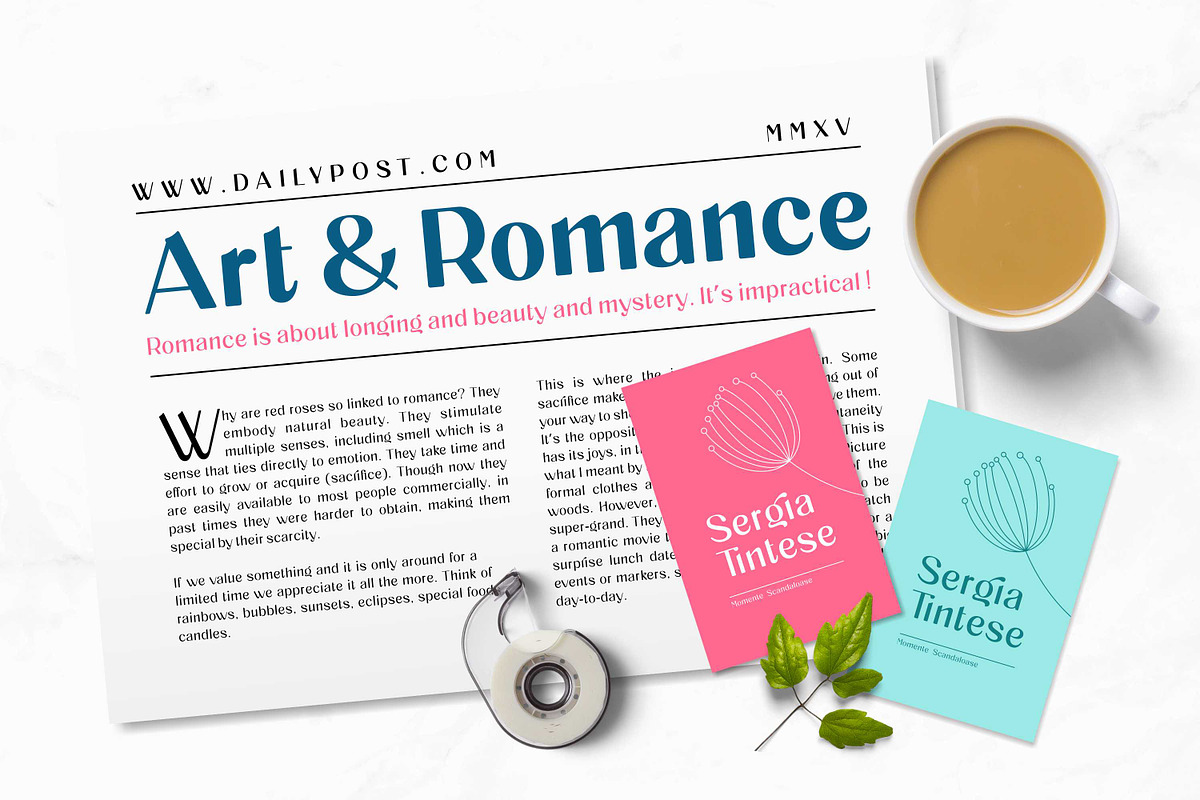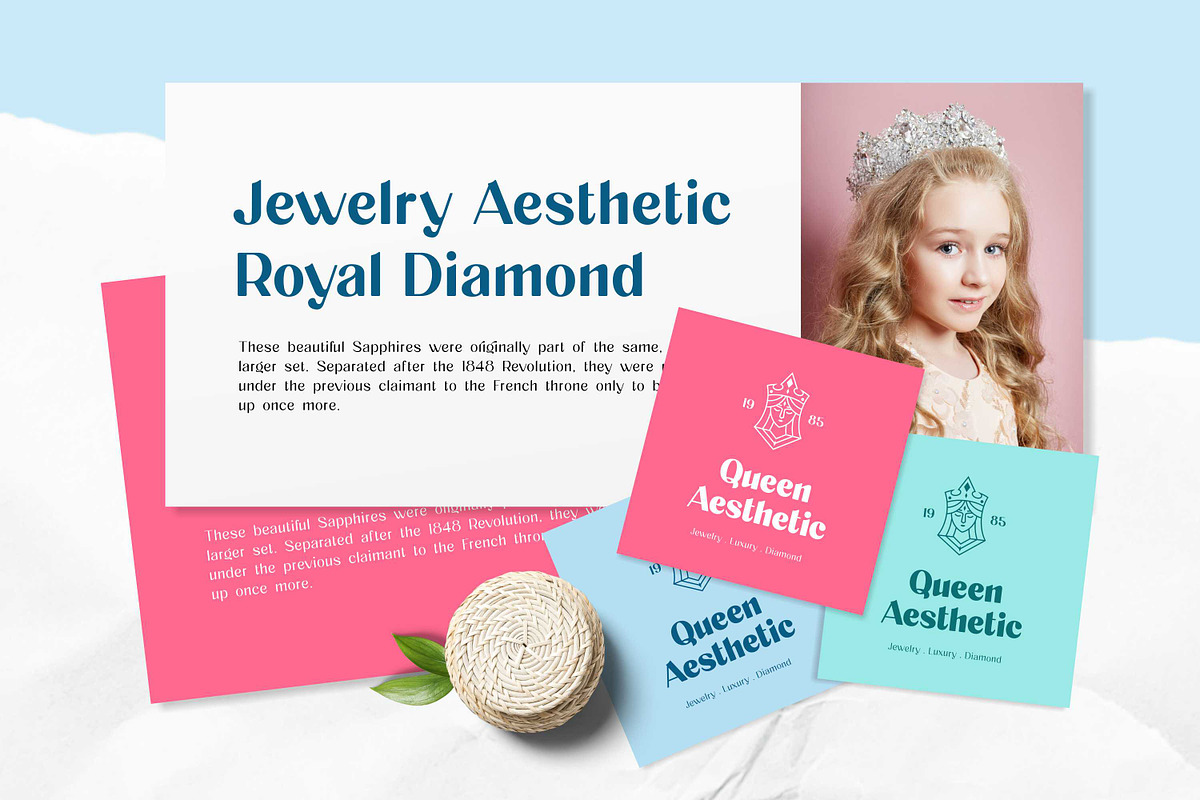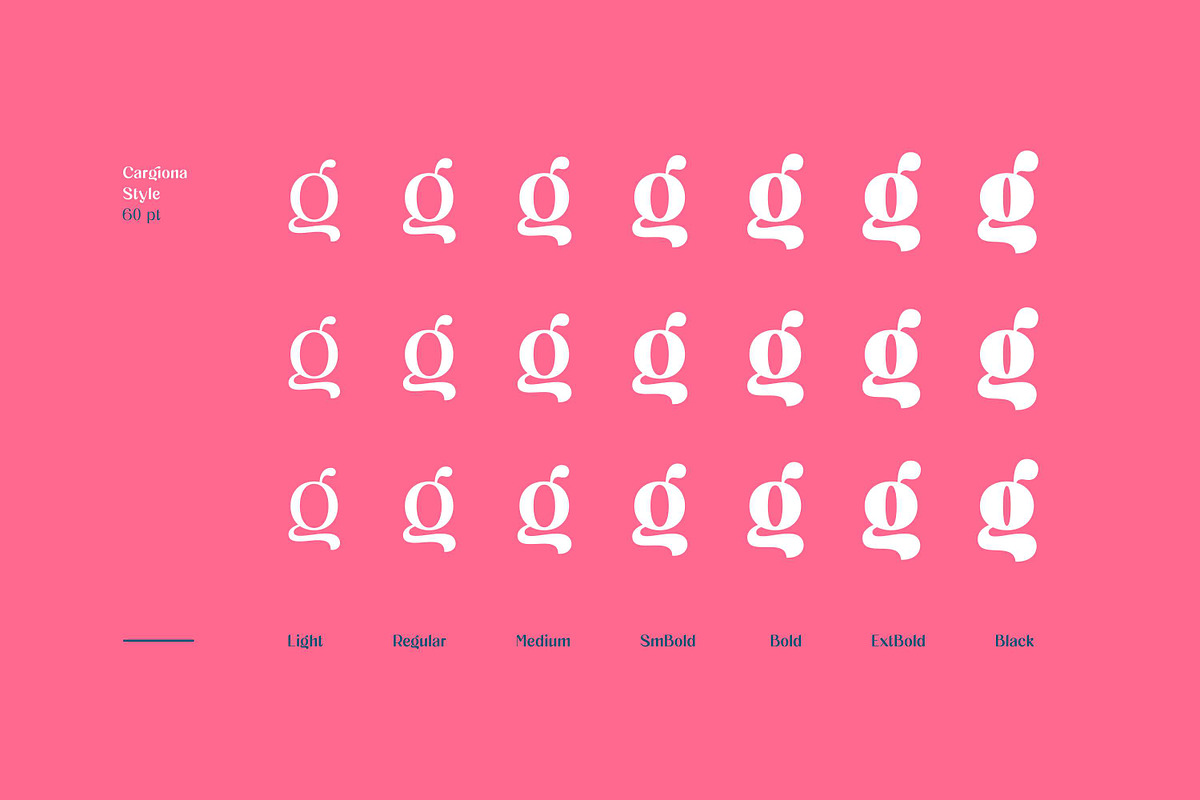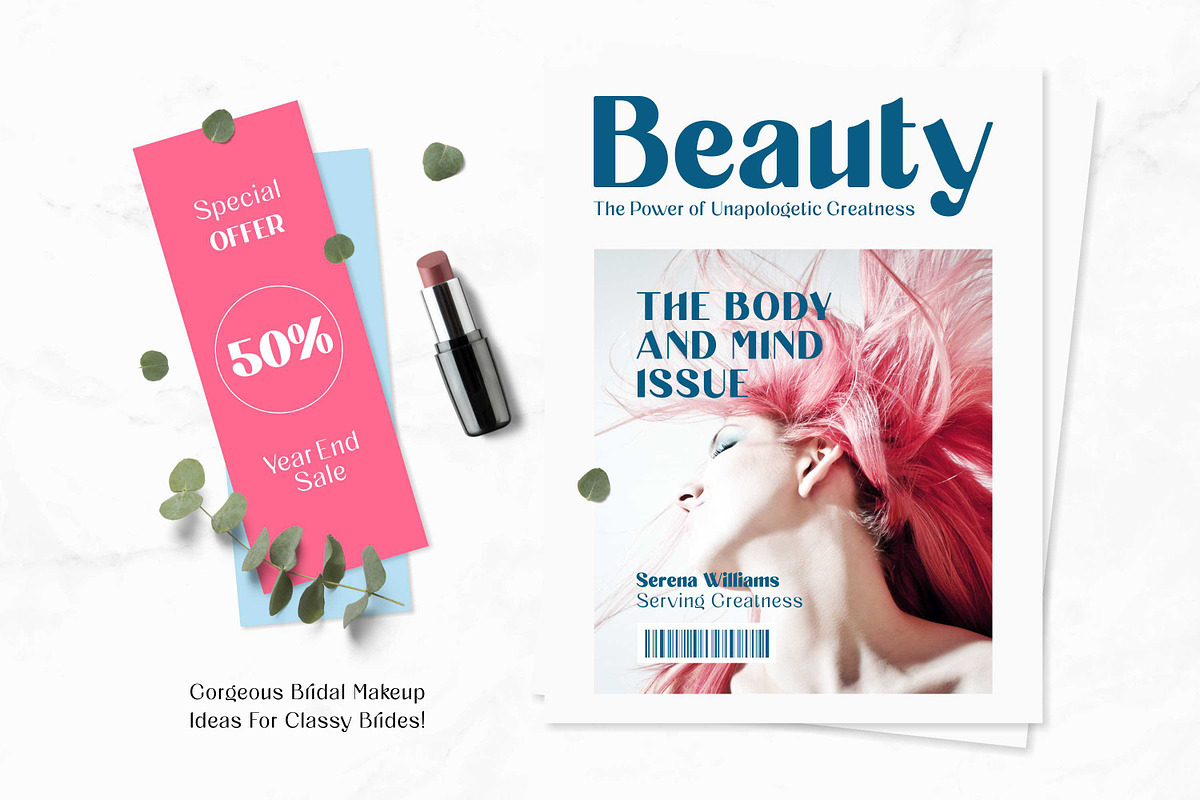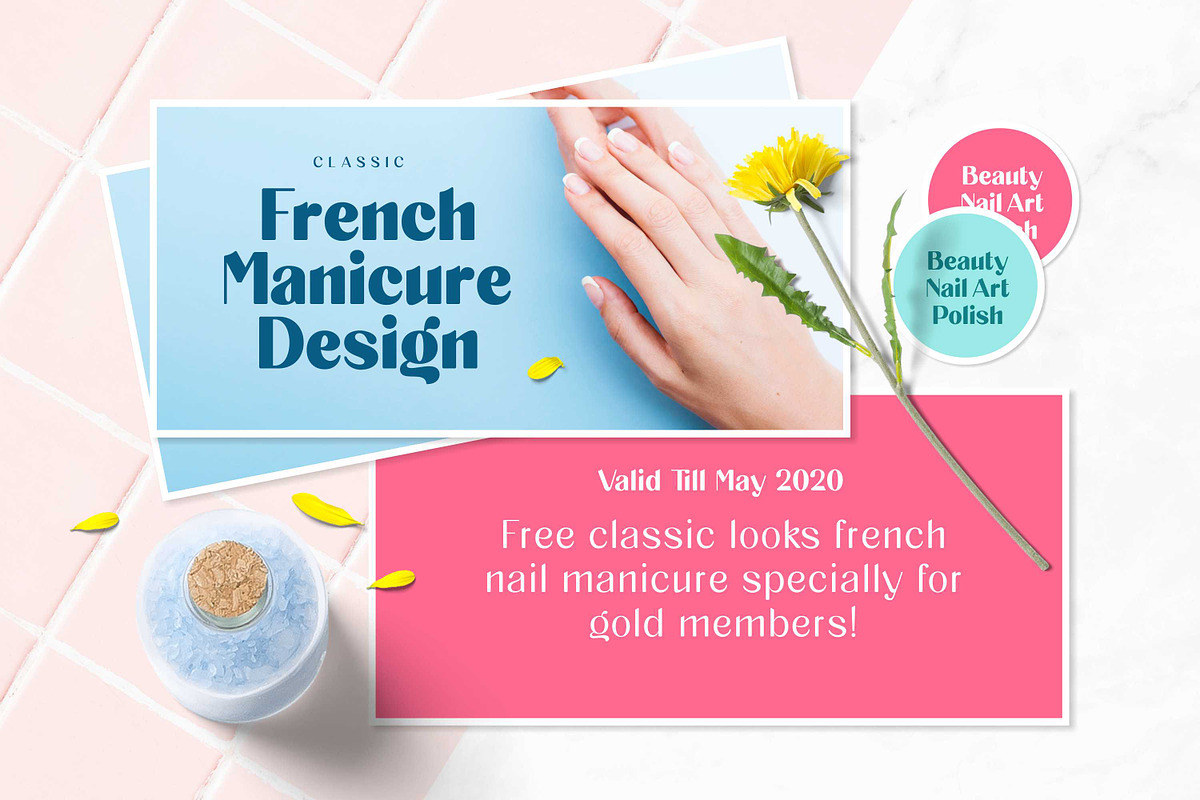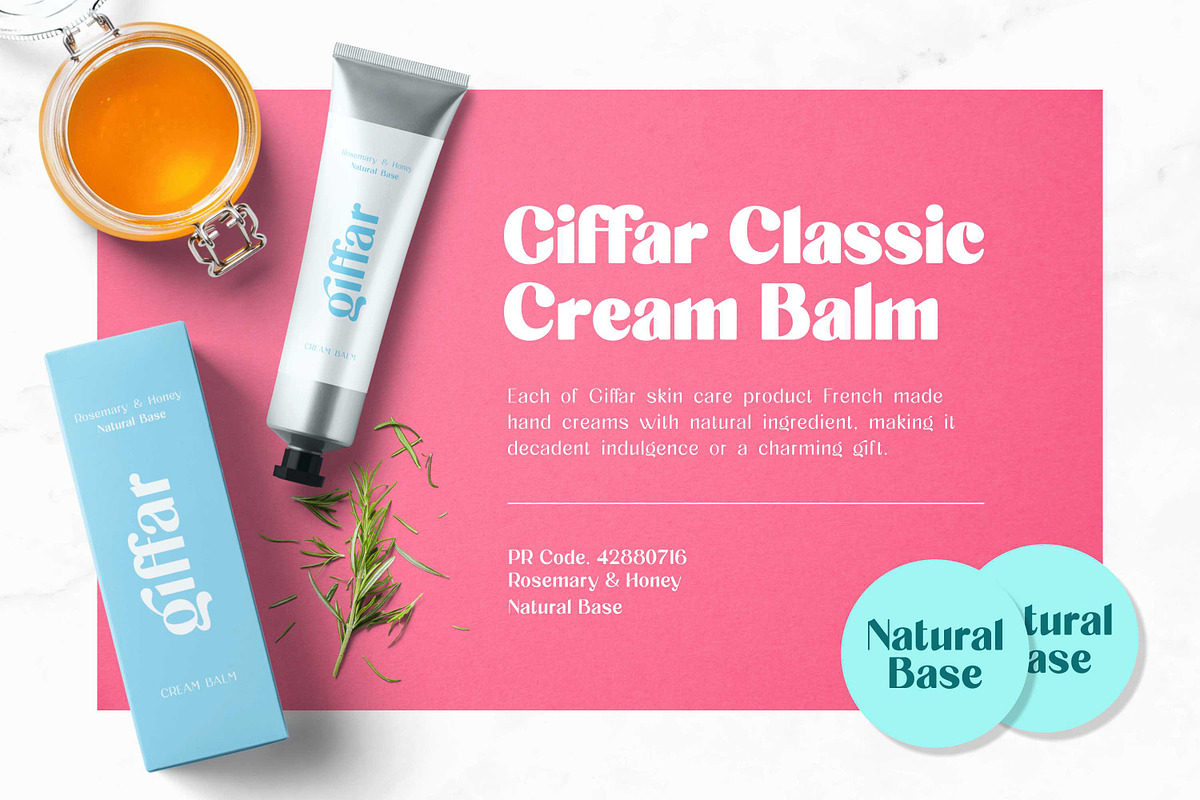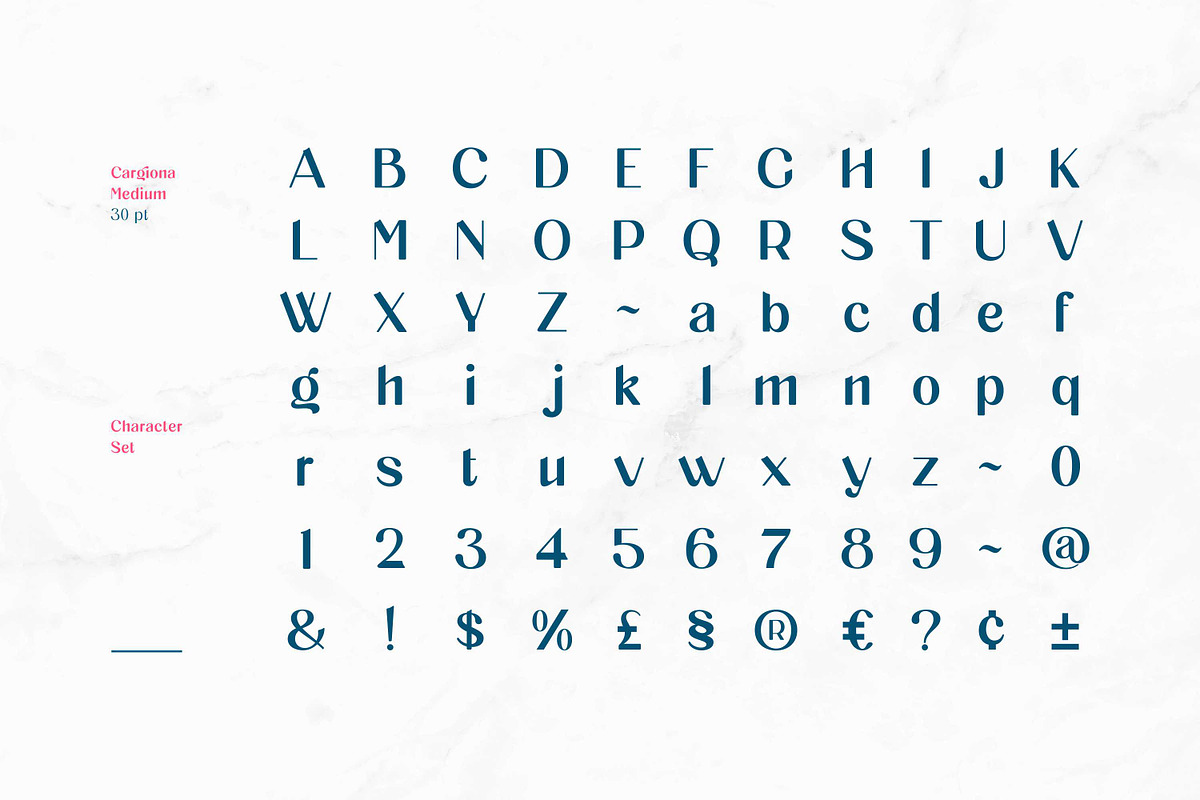
Cargiona - Sans Serif Font Family
Cargiona is a very nice font with a soft and confident impression, modern with a clean touch. Cargiona family includes both lowercase and uppercase letters with 7 choices of font thickness from the lightest weights to black weight. Cargiona suitable for large amounts of text to the heaviest weights, intended for headlines. With weights ranging from light to black, there are a variety of applications that the fonts can be used for print, web, branding, logo, advertising, magazines, products, packaging, labels, etc.
Numerals & punctuation
- Cargiona family includes both lowercase and uppercase letters with 7 choices of font thickness from the lightest weights to black weight.